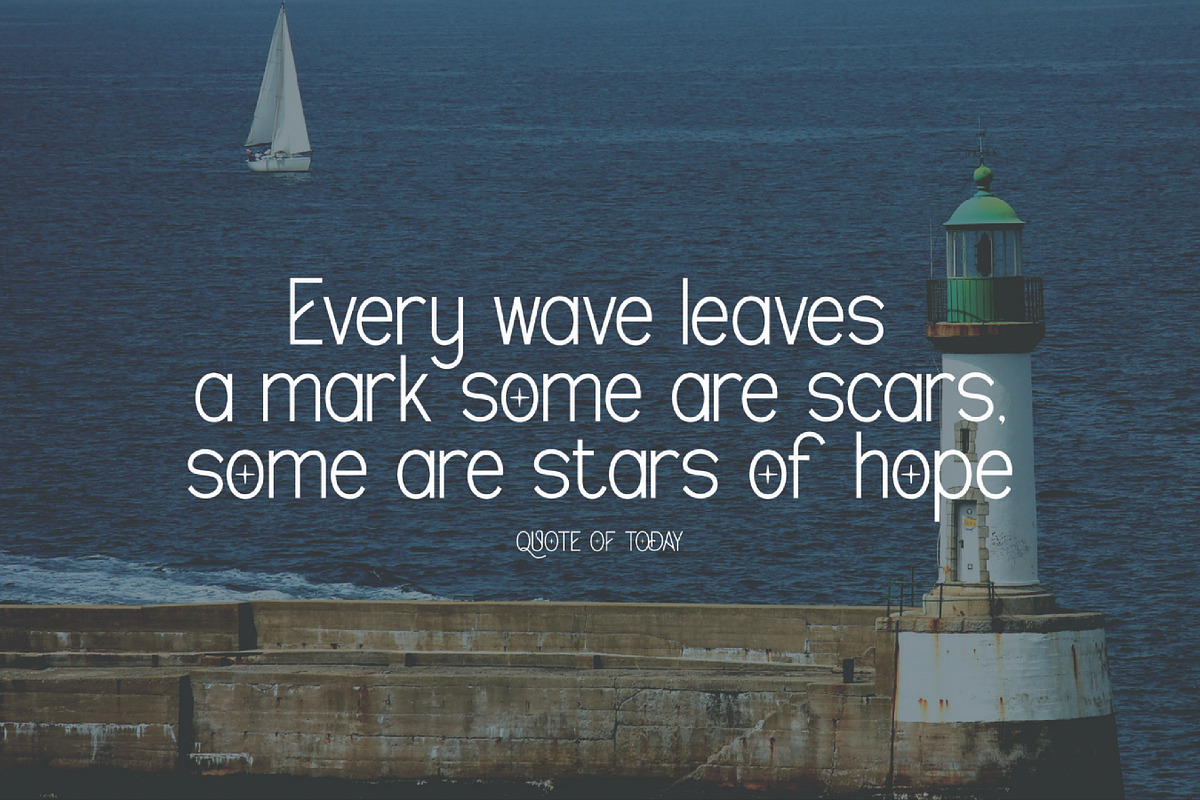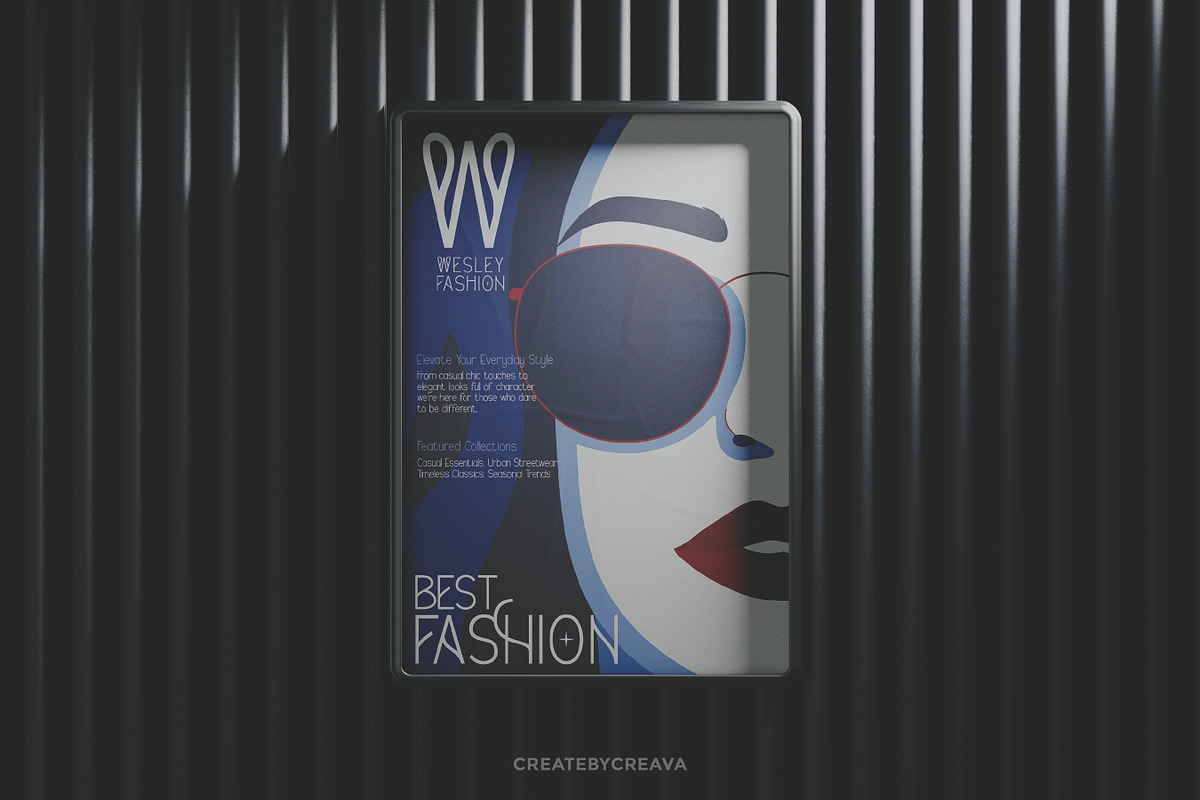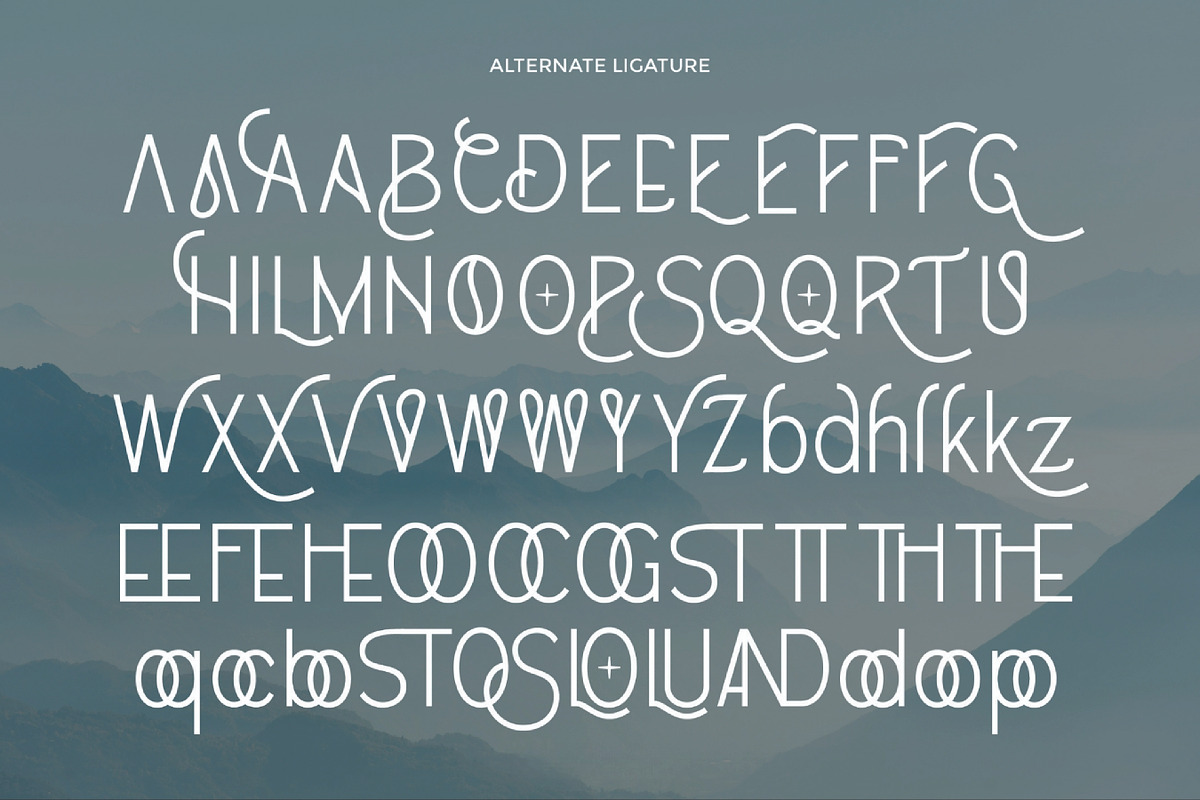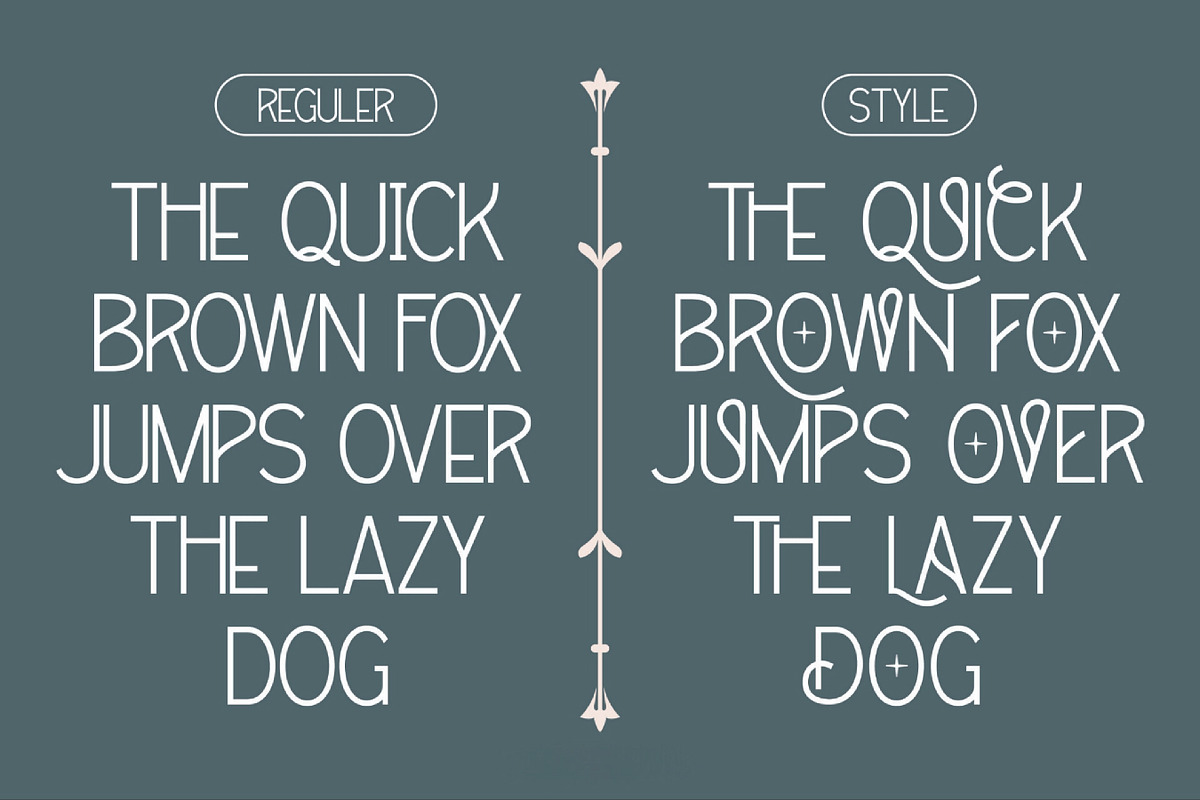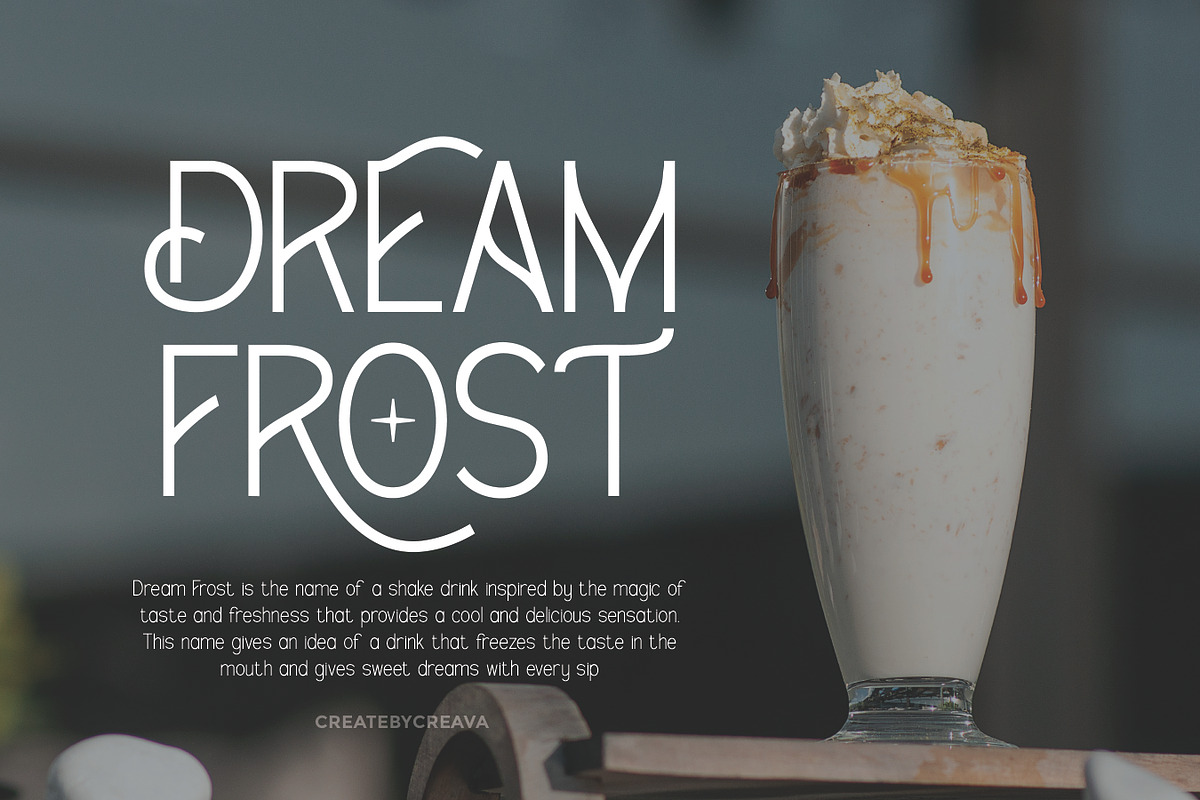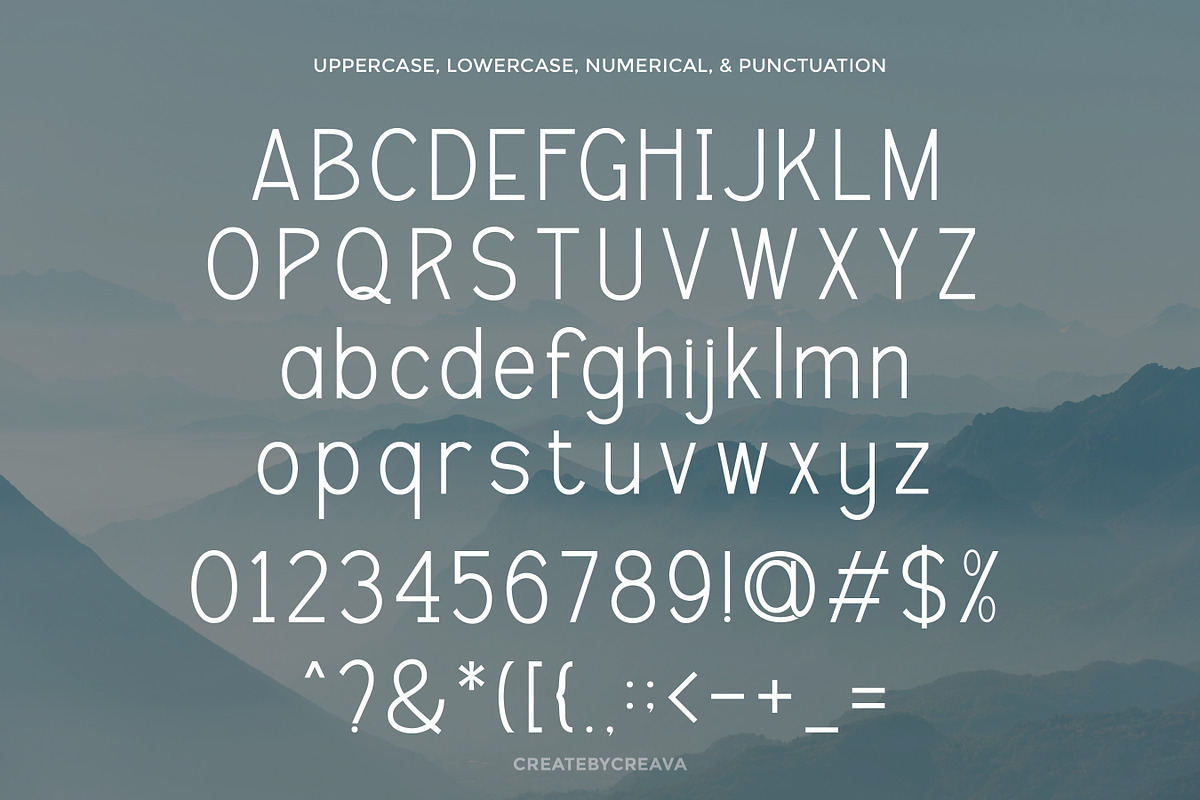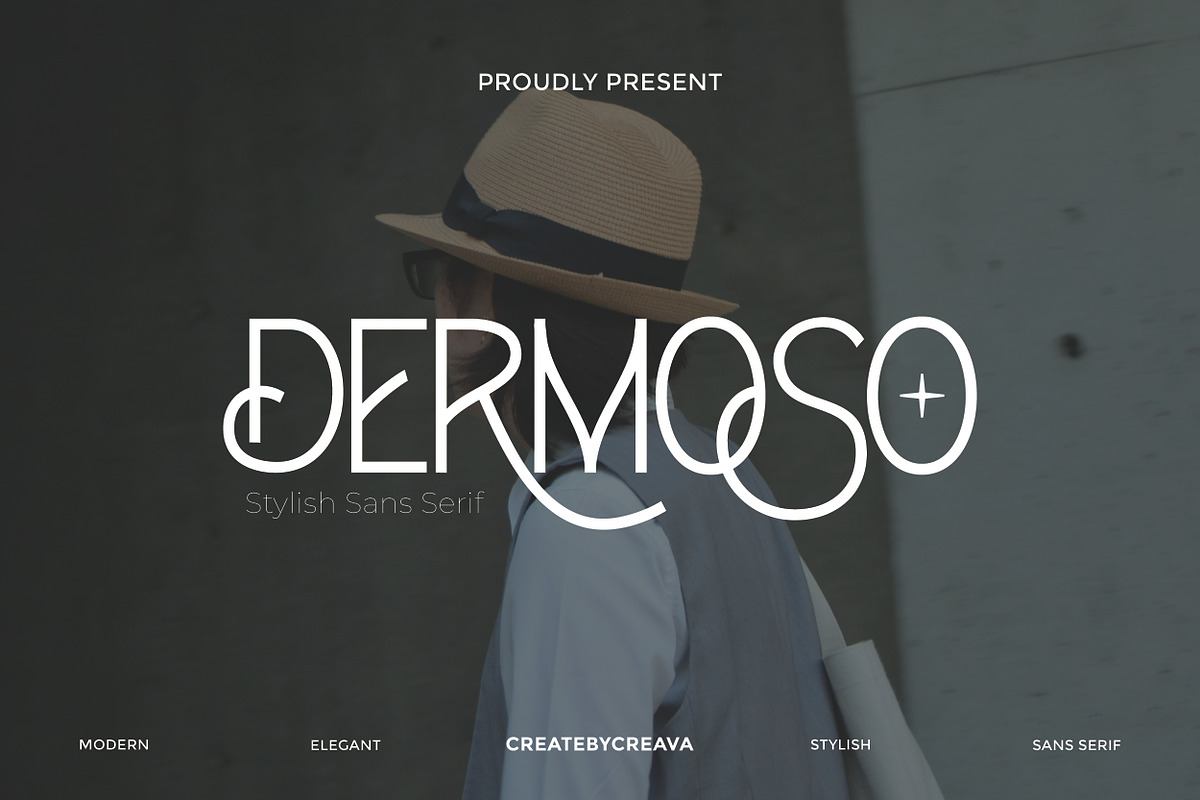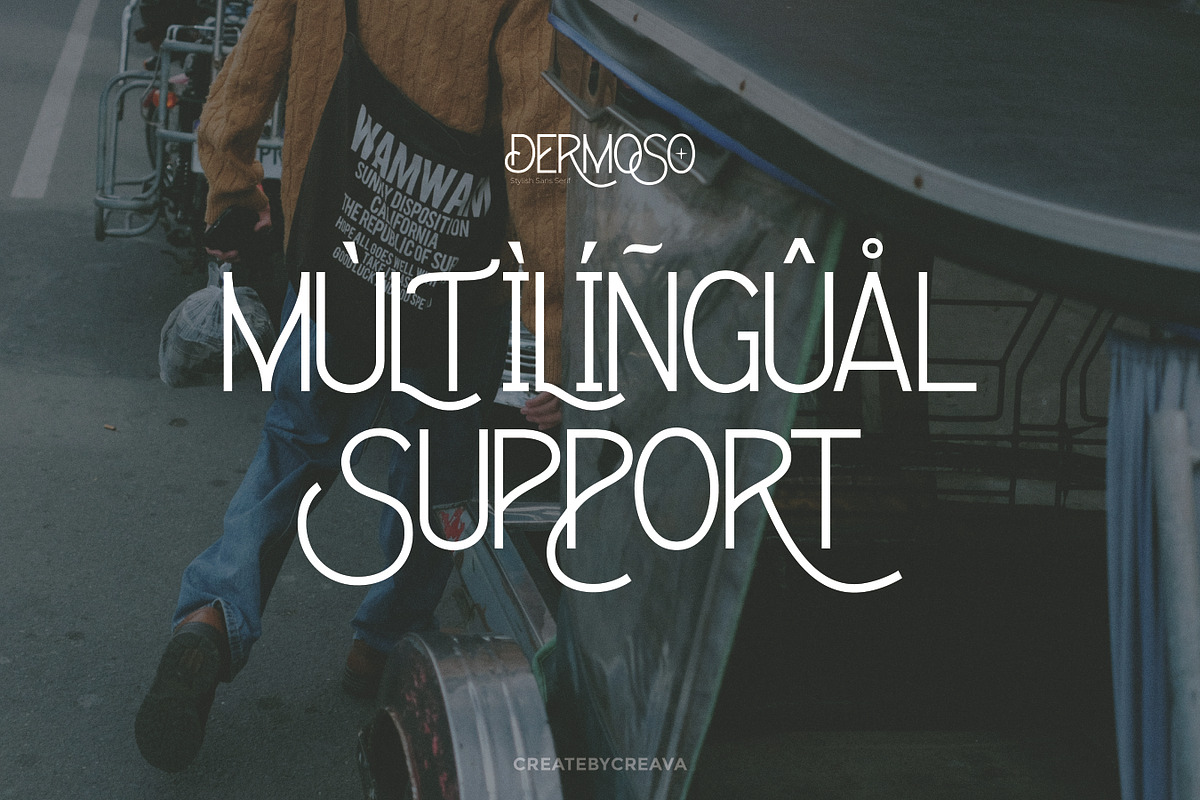
Dermoso - Stylish Sans Serif Font
DERMOSO – Stylish Sans Serif Font with Elegant Curves
DERMOSO is a stylish sans serif font that blends modern clarity with a twist of creative flair. With its clean lines, graceful loops, and uniquely formed letter shapes, Dermoso captures both minimalism and personality—making it an exceptional choice for branding and editorial designs that need a distinctive, fashion-forward voice. Crafted for high impact and elegance, Dermoso excels in applications like fashion branding, beauty packaging, signage, and boutique promotions. Its smooth geometry and playful alternates give every word a sophisticated yet approachable feel, perfect for designs that demand visual interest and charm. Whether you’re working on logos, magazine headlines, product displays, or social content, Dermoso delivers style, refinement, and a confident edge to your typography.
- Unique Alternates
Let your designs speak with poise and elegance—choose Dermoso and stand out with modern charm.
Who Should Use Dermoso?
Dermoso is ideal for designers, creatives, and modern brands looking to express clarity, elegance, and confidence through typography. With its clean lines and balanced proportions, Dermoso is perfect for projects that demand a professional yet stylish typeface with a contemporary edge.
Ideal for:
- Branding studios seeking sleek and versatile sans serif fonts
- Packaging designers needing modern and minimal visual appeal
- Editorial designers crafting clean, impactful layouts
- Creatives working on signage, web design, or lifestyle branding
If your design vision leans toward refined simplicity with a bold presence—Dermoso is your go-to font.
A Must-Have Font for Brand and Logo Creators and Designers
DERMOSO is a go-to choice for designers looking to build striking and memorable brand visuals. Its clean lines, unique curves, and artistic flair make it an essential tool for crafting logos and brand identities that feel both modern and timeless. Whether you’re designing for fashion labels, boutique shops, beauty products, or lifestyle brands, Dermoso helps you communicate elegance, creativity, and style—making it a must-have addition to your type arsenal.
Why Choose DERMOSO for Brand and Logo Projects?
DERMOSO stands out with its distinctive blend of minimalism and stylish detail—giving your brand a refined yet approachable presence. The smooth curves, creative letterforms, and elegant sans serif structure are designed to draw attention and leave a lasting impression. Its versatility makes it perfect for upscale branding, modern product packaging, fashion-related identities, and creative studios looking for a unique typographic voice. With DERMOSO, your brand gains a look that’s clean, artistic, and effortlessly sophisticated.
Suitable for:
Brand identity design, modern logos, fashion & lifestyle branding, product packaging, signage, café or boutique branding, editorial titles, creative studio visuals, and advertising with a clean yet artistic flair—DERMOSO is perfect for any design that seeks elegance, personality, and standout letterform aesthetics.